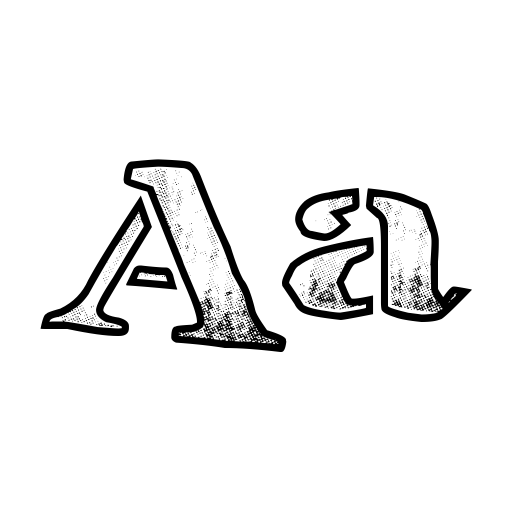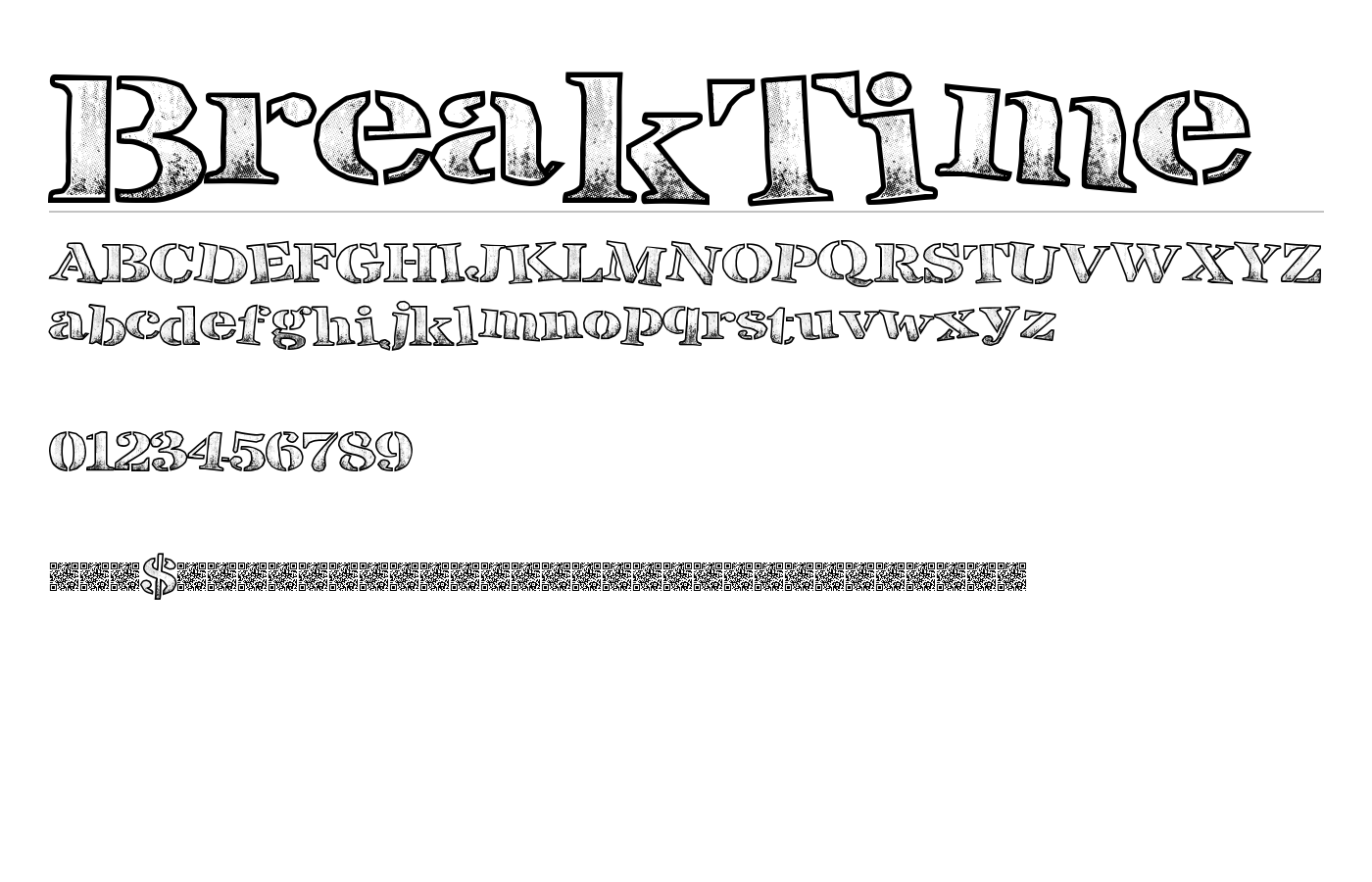
BreakTime Font is a bold, decorative serif typeface with a vintage, distressed texture that adds character and a handcrafted feel. Its playful yet strong letterforms feature thick, bracketed serifs and unique, irregular shapes, making it ideal for eye-catching headlines, posters, and branding that aim for a nostalgic or retro vibe. This font works great where a bold statement with personality is needed, especially for creative and entertainment-related designs.
BreakTime Font
About BreakTime Font